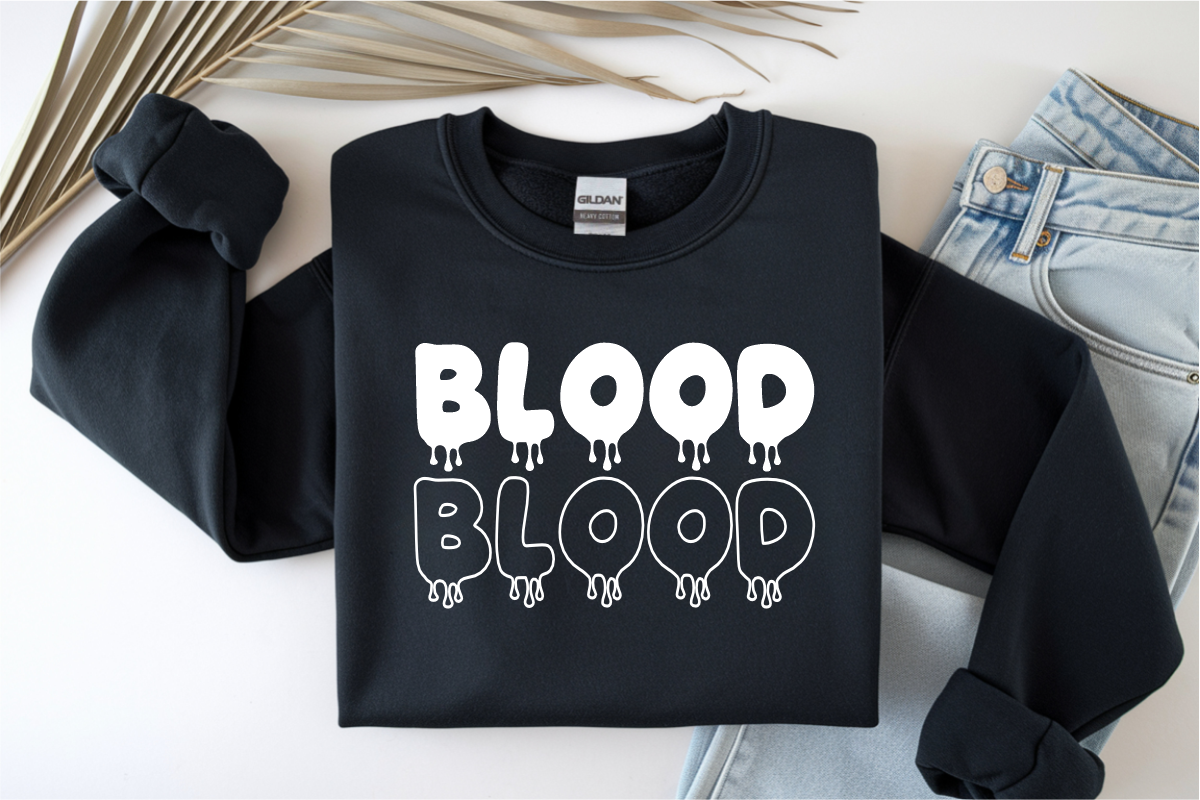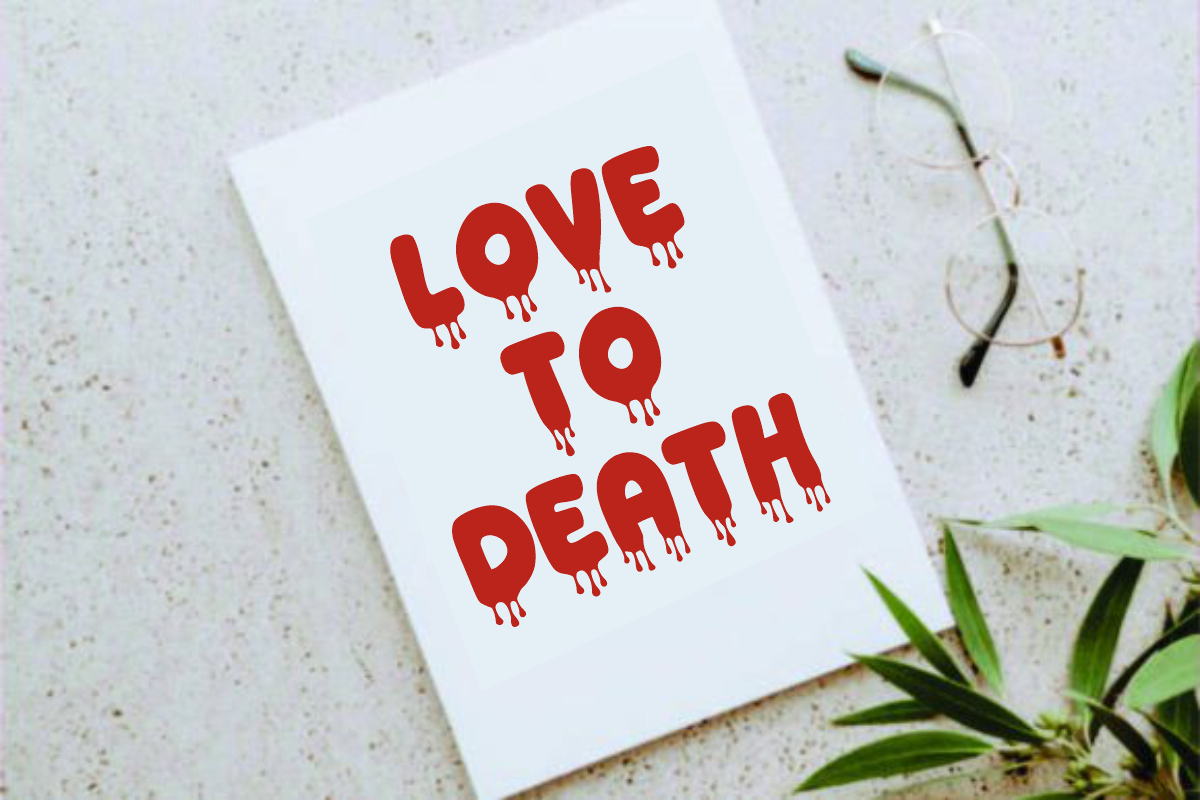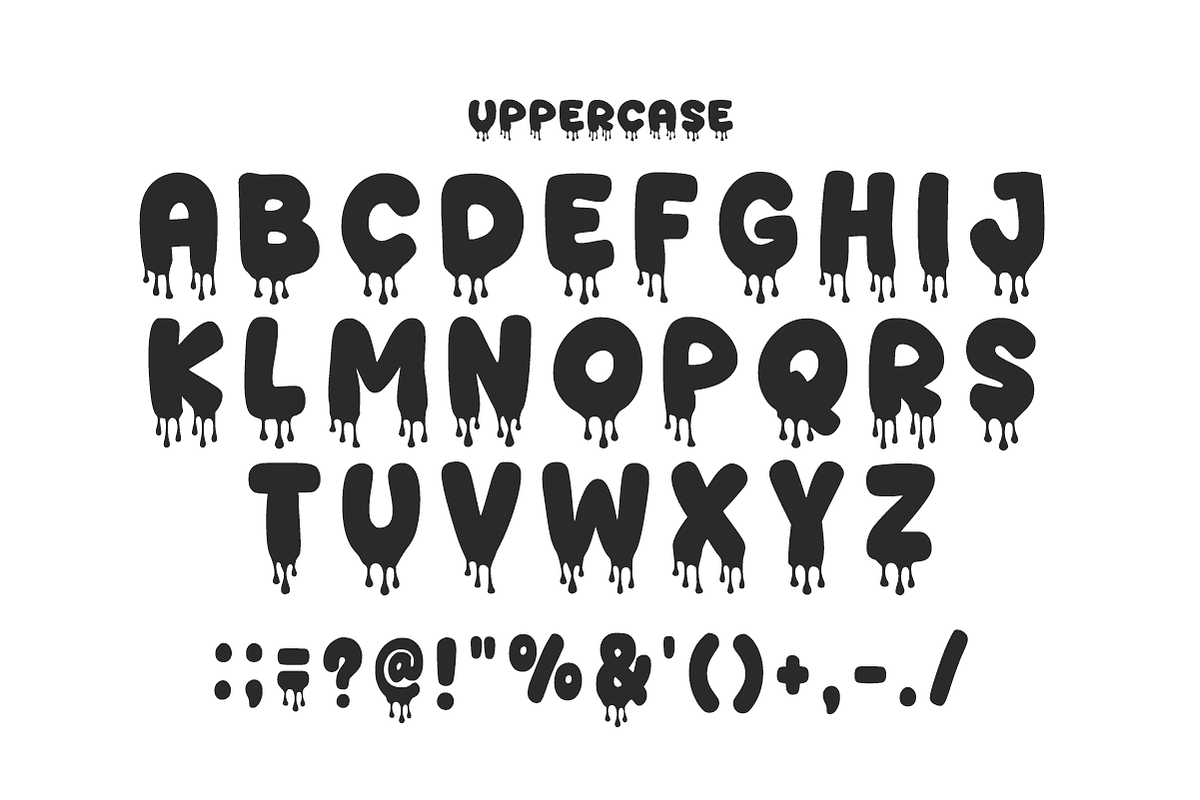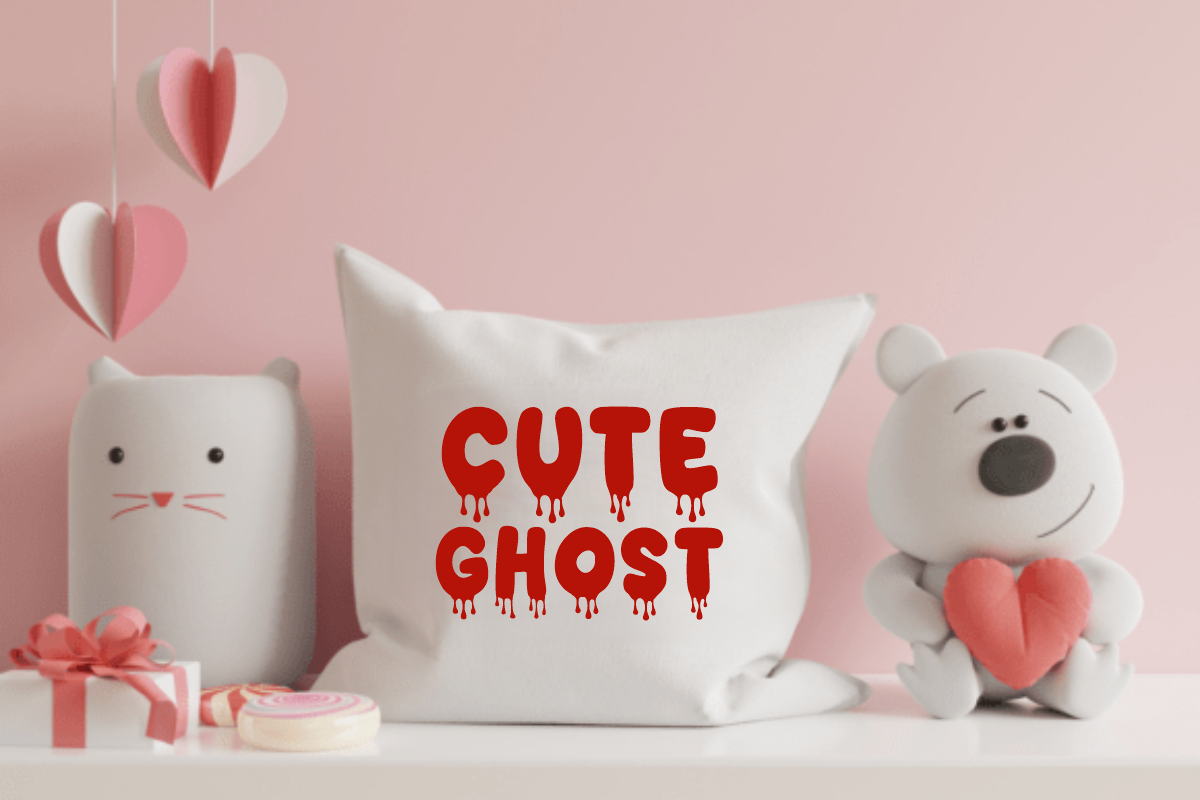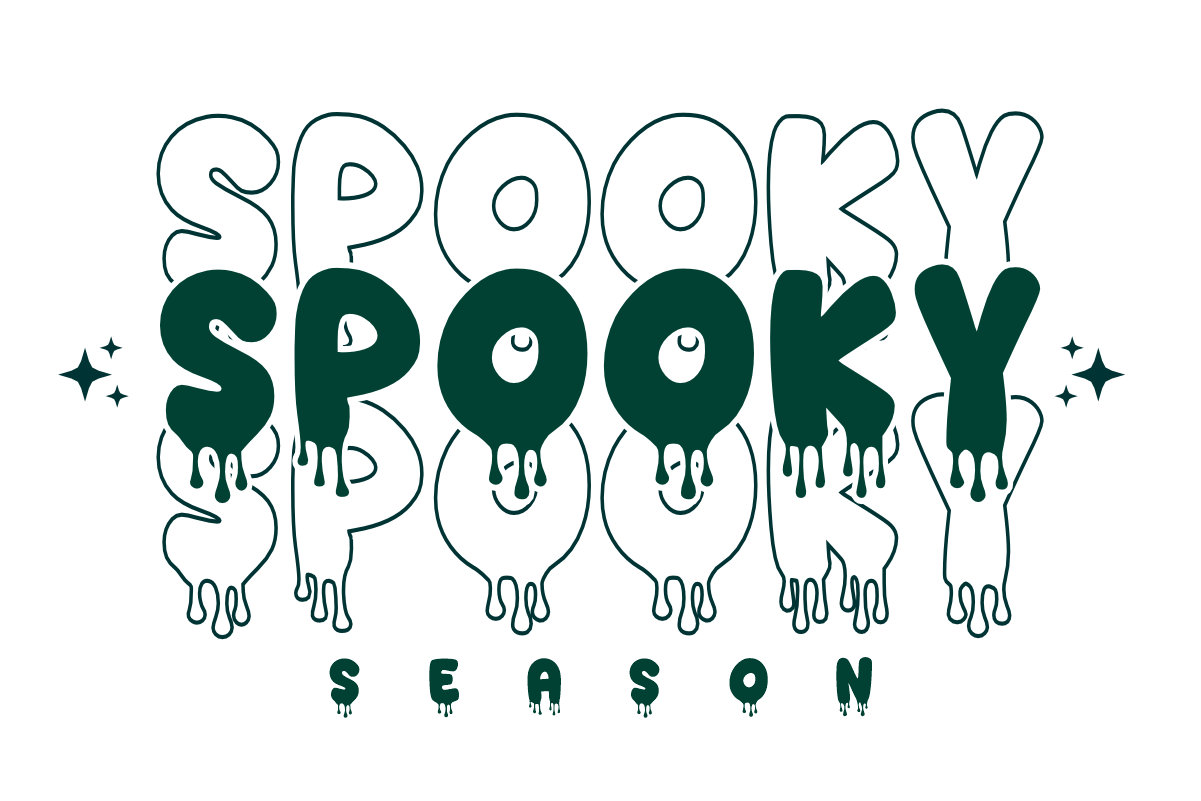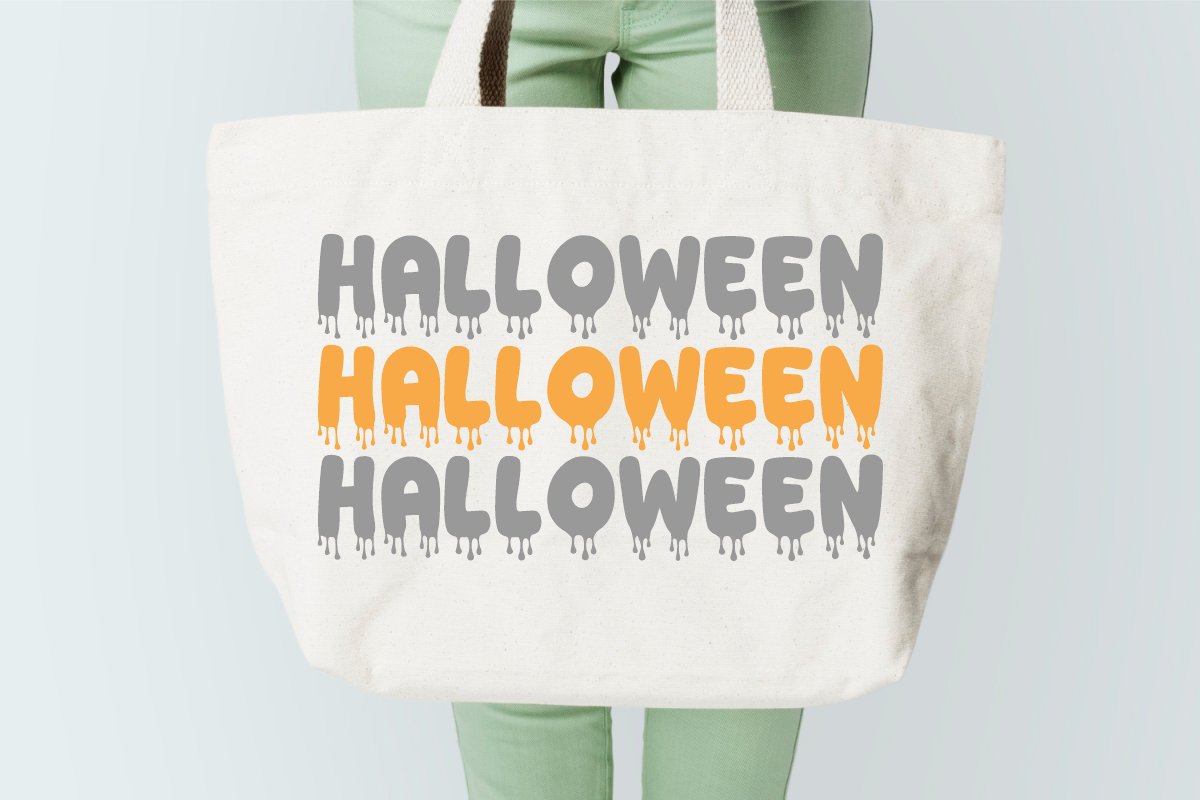
Spooky Season - Halloween Drip Font
Spooky Season is a fun, dripping display font featuring chunky bubble letters with eerie slime drips and whimsical eyeball details. Packed with playful Halloween vibes and creepy-cute charm, this dripping font brings a spooky-season pop to your trick-or-treat crafts, apparel, and seasonal graphics. Every character is cleanly vectorized to guarantee high-resolution prints and smooth, effortless cutting on Cricut and Silhouette machines.